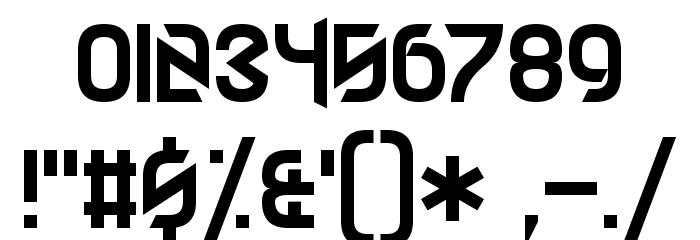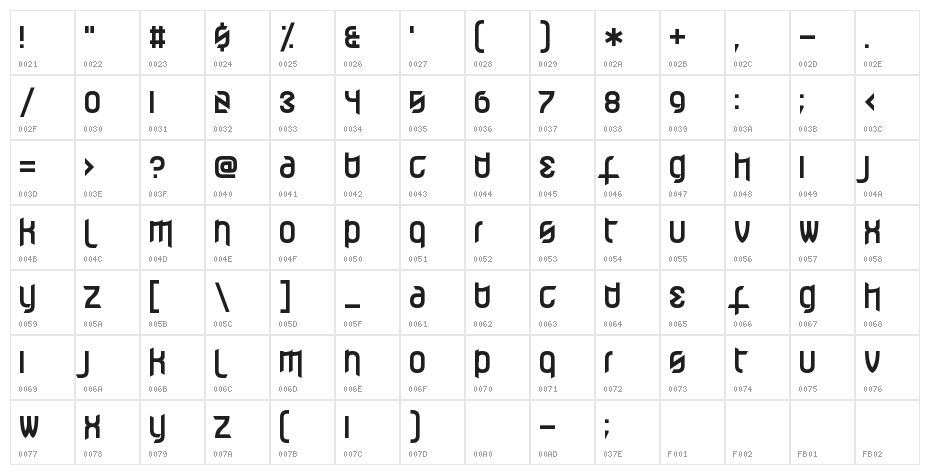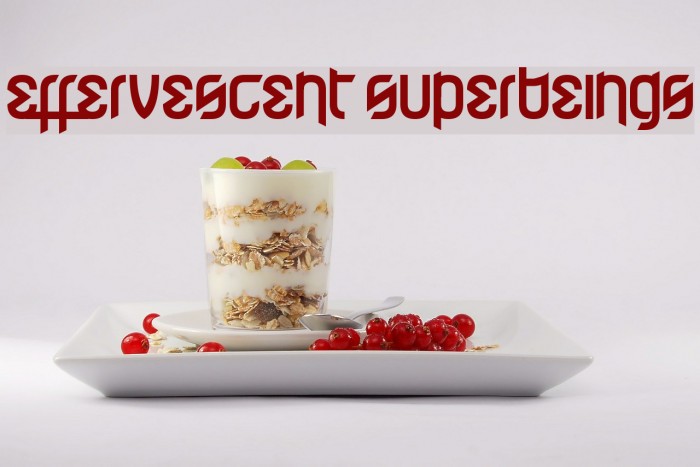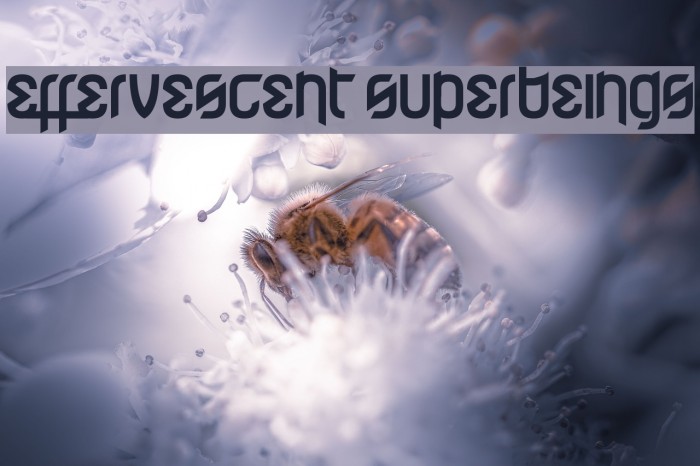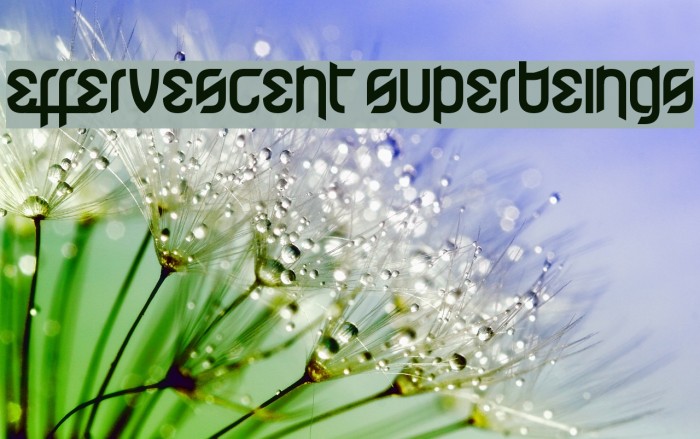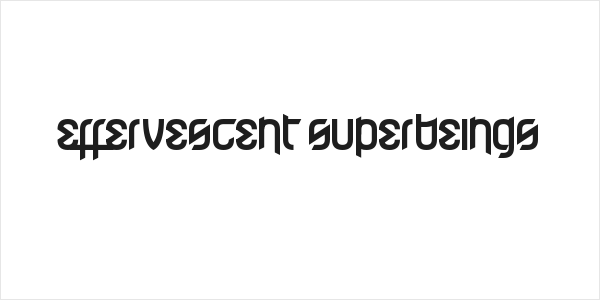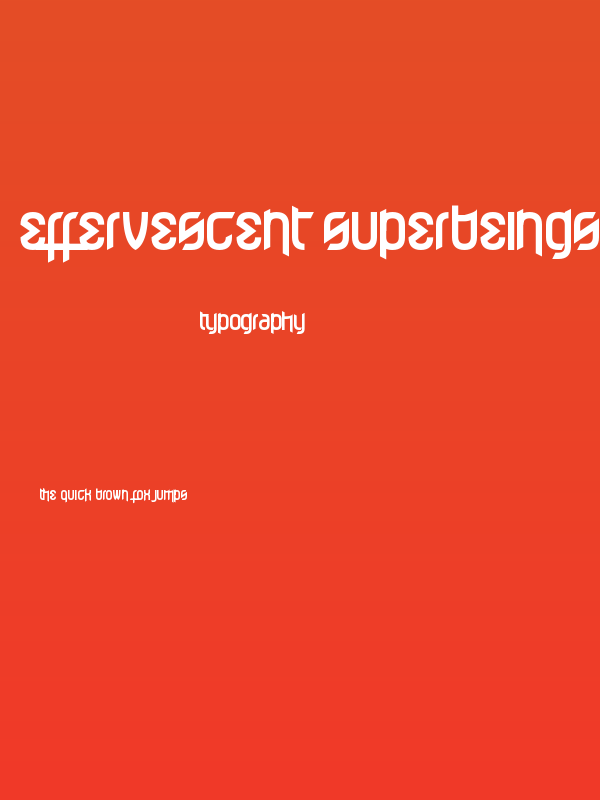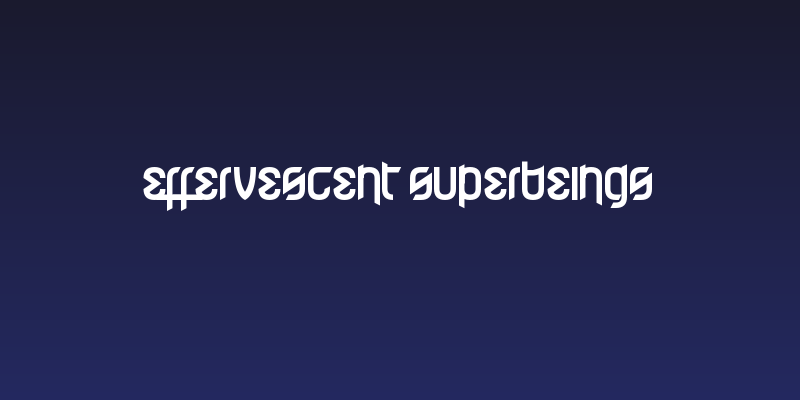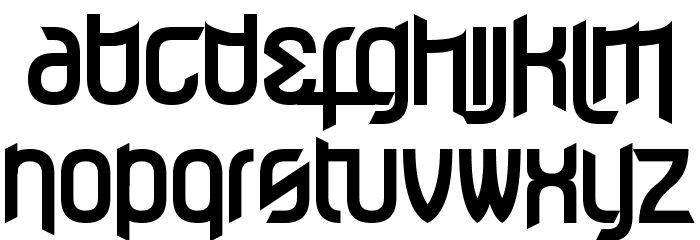
Effervescent Superbeings Font
Effervescent Superbeings Description
This font features a bold and striking design with a modern, geometric aesthetic. The characters are constructed with sharp angles and clean lines, creating a futuristic and edgy appearance. The uppercase and lowercase letters share a consistent style, with unique elements such as the angular cuts and extended strokes that give the font a distinctive look. The numerals and special characters maintain the same bold and structured design, ensuring a cohesive appearance across all text. This font's strong visual impact makes it ideal for projects that require a contemporary and attention-grabbing typeface.
| Proposed Projects | Ideal for branding, posters, headlines, and digital media that require a modern and bold aesthetic. |